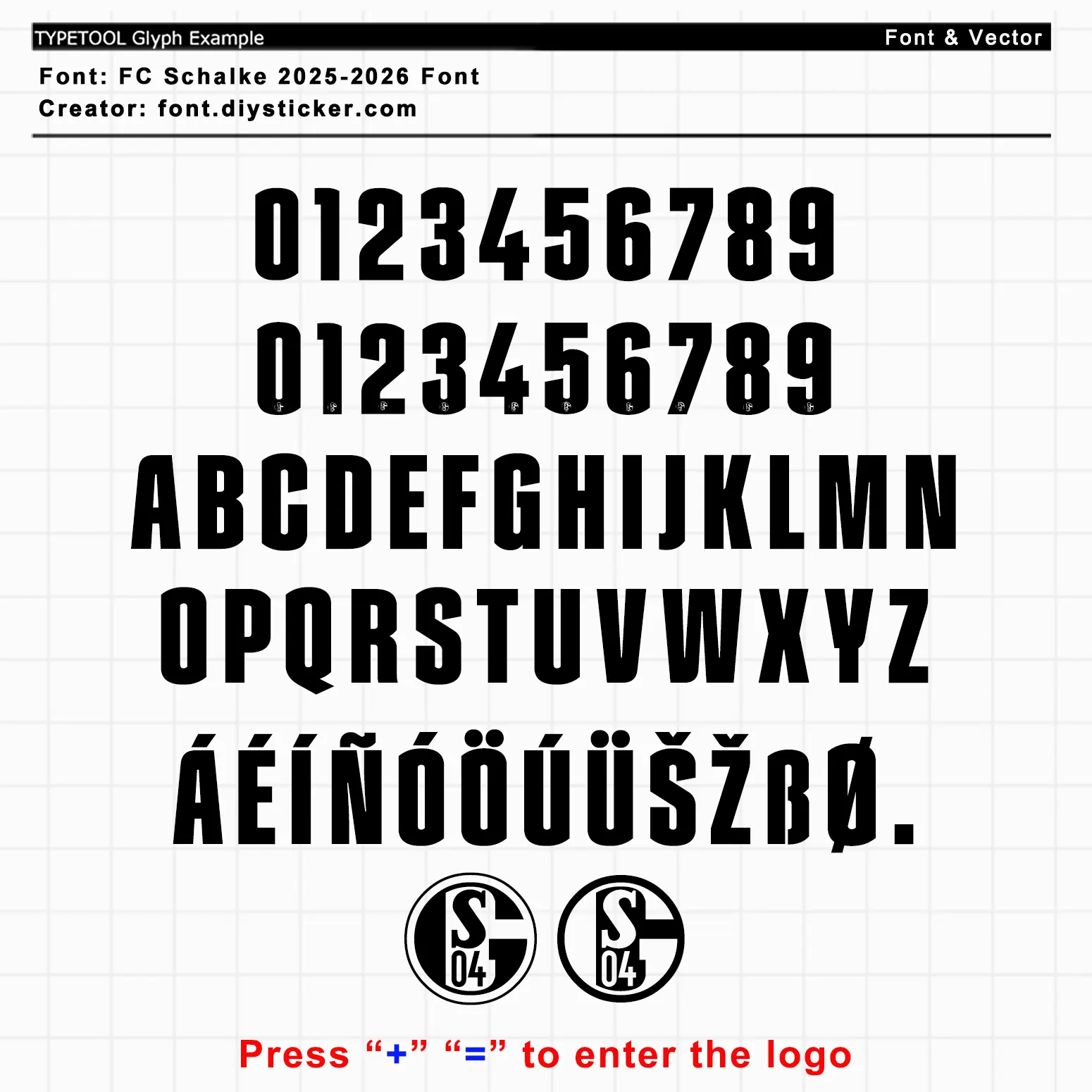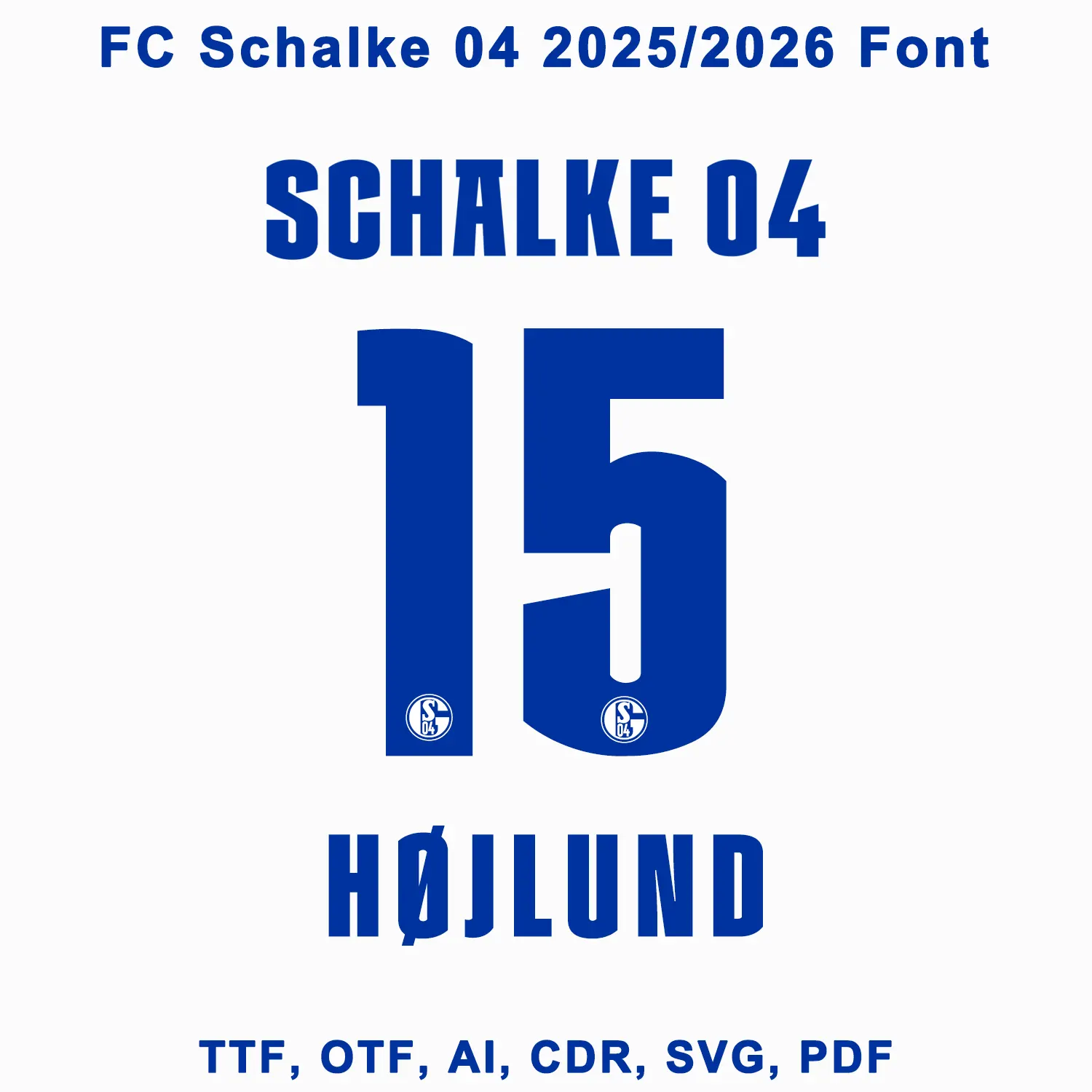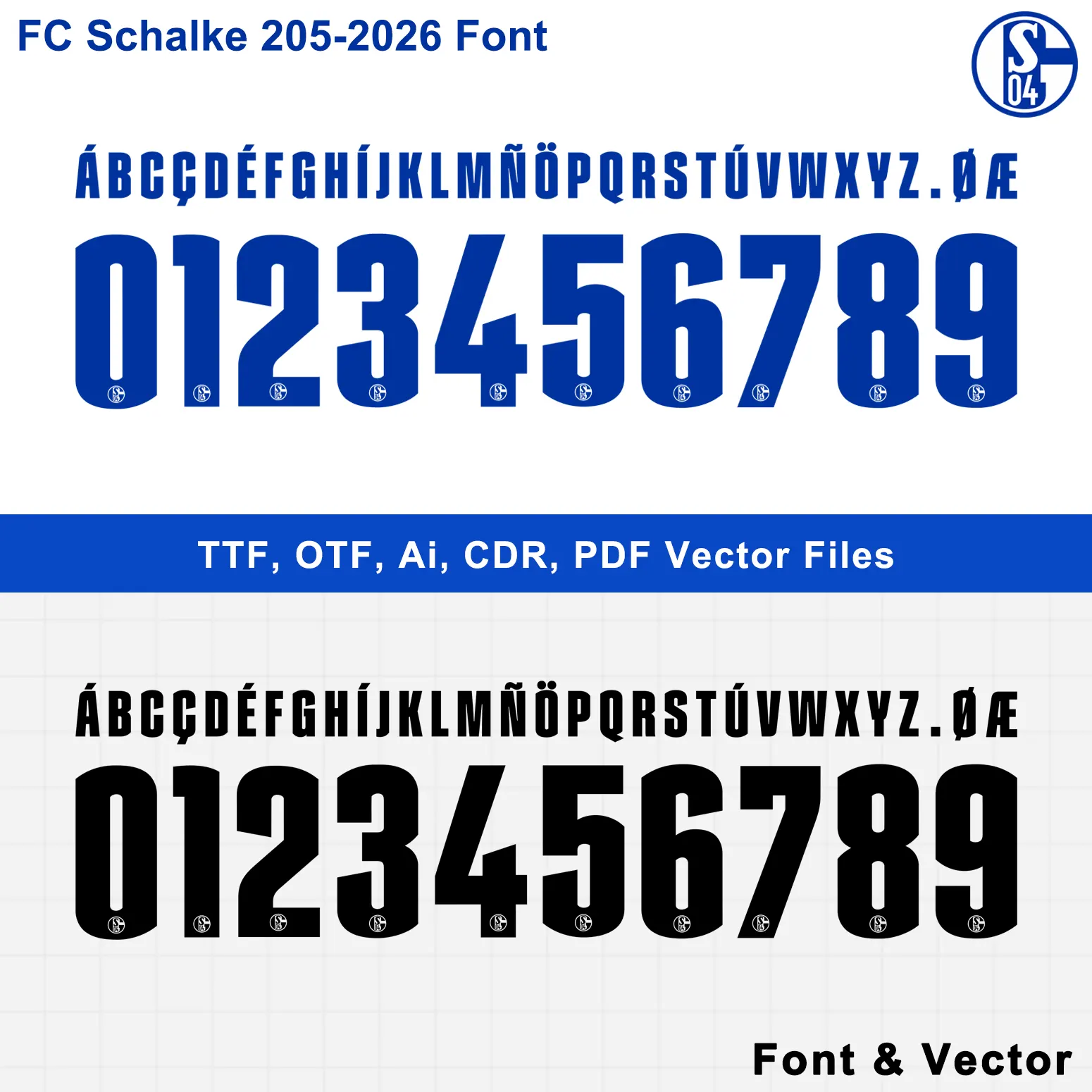
FC Schalke 2025-2026 Font | Official Königsblauen Bundesliga Typography
The FC Schalke 2025-2026 Font is a precise digital replica of the official jersey lettering used by FC Schalke 04 for the 2025-2026 Bundesliga season. Crafted for print studios, kit restorers and custom apparel creators, this font features blocky geometric bold sans-serif shapes, tiny embedded S04 club crest marks at the base of every number, and a full set of German & Nordic diacritic accented characters including Ø, Æ to match official Schalke player names. Two distinct S04 crest glyphs can be quickly accessed by pressing the “+” and “=” keys in TTF/OTF font files, optimized for the iconic royal blue home jersey base.
Whether you’re remaking vintage replica jerseys, producing fan custom kits, or preparing mass vinyl cut orders for Bundesliga supporters, this complete font set delivers crisp, print-ready vector characters with perfectly matched official kerning and shape proportions.